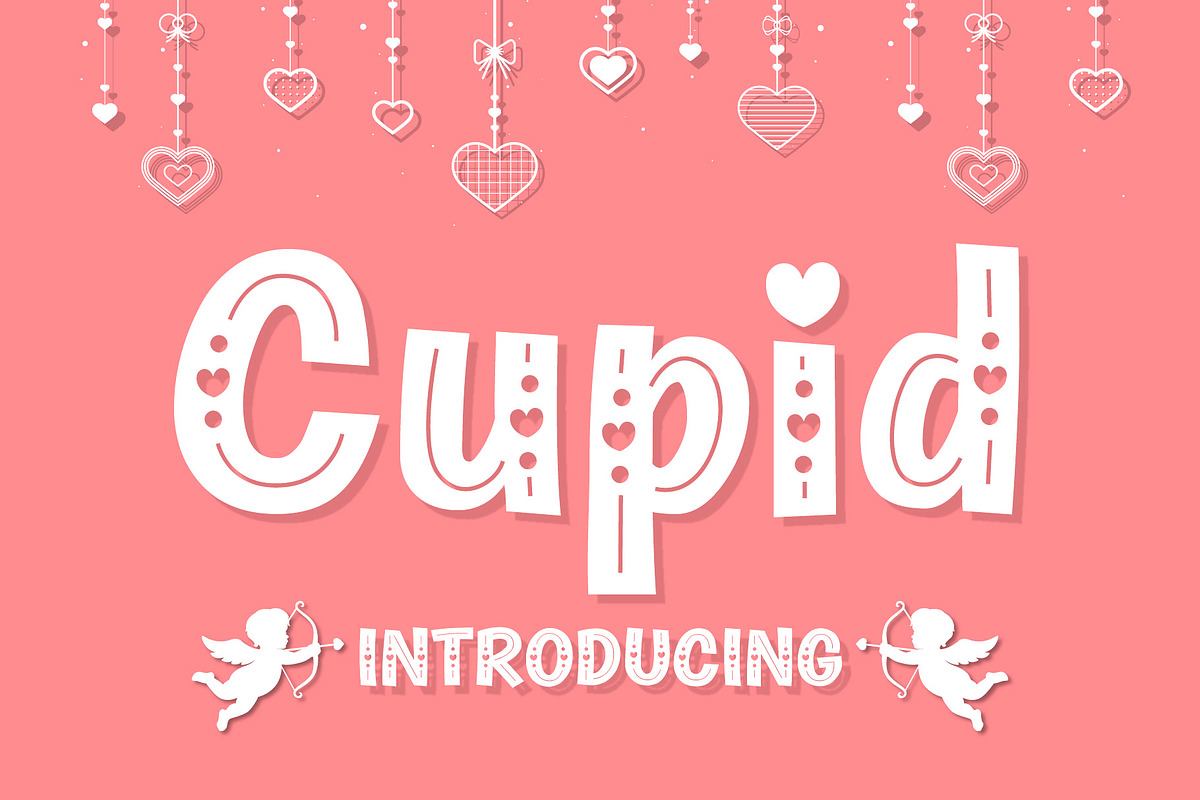
Cupid Decorative Fonts Free Download
Cupid Decorative Fonts Free Download is a romantic and whimsical typeface collection designed to capture the sweetness of love and affection. With heart-themed elements, playful curves, and elegant swashes, this font is perfect for Valentine's Day cards, wedding invitations, love notes, romantic branding, and sweet product packaging. It's charming, expressive, and full of personality.
Using the Cupid Decorative Fonts Free Download brings a touch of tenderness and creativity to your designs. Whether you're crafting heartfelt messages or designing themed merch, this font adds a unique, love-filled vibe that stands out beautifully in both print and digital formats.